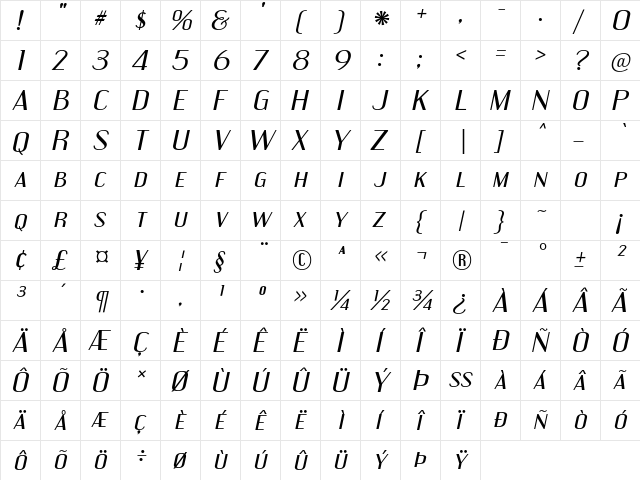
Engebrechtre Expanded Italic
Design Context for Engebrechtre Typeface
Engebrechtre is a composed and adaptable typeface that performs quietly and consistently across a wide range of design contexts. Its italic angle brings a sense of urgency and motion to the letterforms.
Pro Tip: Use Engebrechtre for emphasis, pull quotes, and subheadings where its slanted energy can add rhythm to the layout.